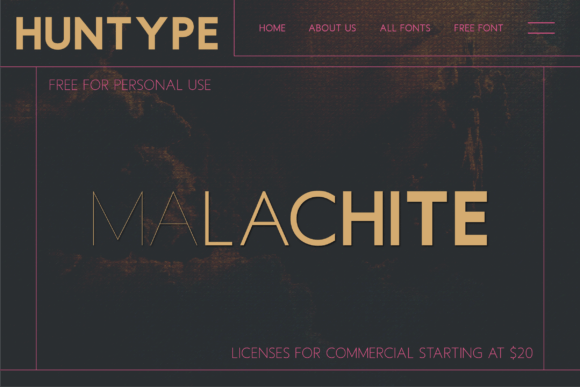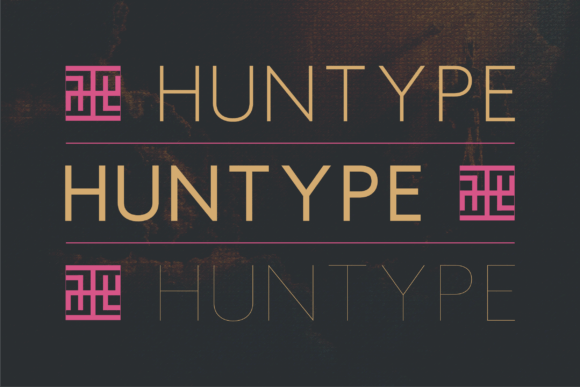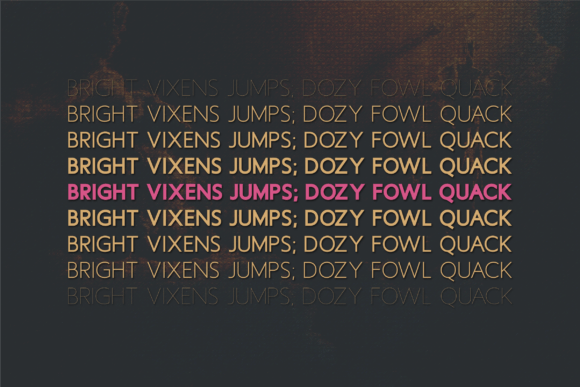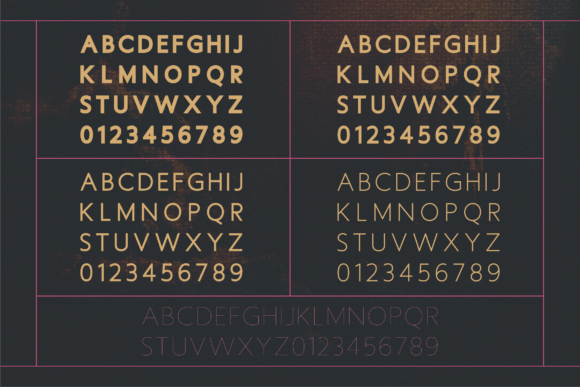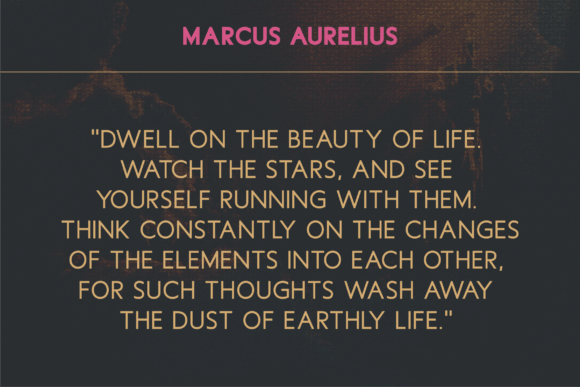
Introduction to Malachite Font
Have you ever found yourself staring at a blank page, searching for the perfect font to elevate your creative project? I’m sure many designers can relate to that moment of frustration, but what if I told you that there’s a font family that can solve that problem and take your designs to the next level? Enter the Malachite Font, a modern and versatile font family that’s about to become your new go-to design resource.
With its clean geometric forms and subtle sophistication, the Malachite Font is a game-changer for designers looking to create high-quality designs that exude a professional and contemporary feel. Whether you’re working on a branding project, a logo, or a headline, this font family has got you covered. Plus, with a range of weights available, you can explore a wide array of applications and find the perfect fit for your design.
Key Features of Malachite Font
- High-quality, unique design ideal for creative projects
- Includes a wide range of characters, including Latin and Cyrillic scripts
- Perfect design resource for graphic designers, digital artists, and web developers
Honest Review: Malachite Font
As a designer, I’m always on the lookout for high-quality design resources to elevate my creative projects. The Malachite Font is a great addition to my toolkit, and I’m excited to share my thoughts on it.
- ✨ The Malachite Font is incredibly versatile, suitable for a wide range of creative projects, from digital art to print design.
- ✨ The transparent background option allows for seamless integration into any design, giving me complete control over the composition.
Any limitations:
- ⚠️ The font may not be suitable for use in smaller text sizes, as the lines can become slightly distorted.
- ⚠️ The font family is relatively small, with only a few styles to choose from.
Overall impression: